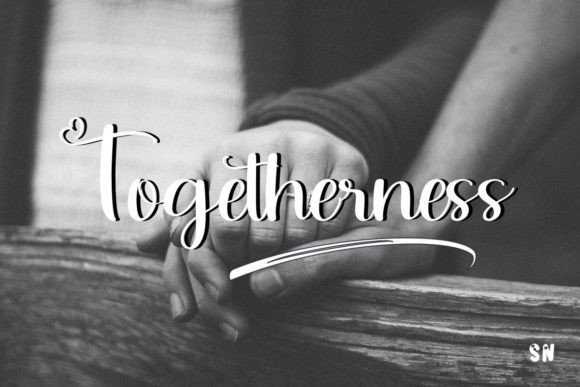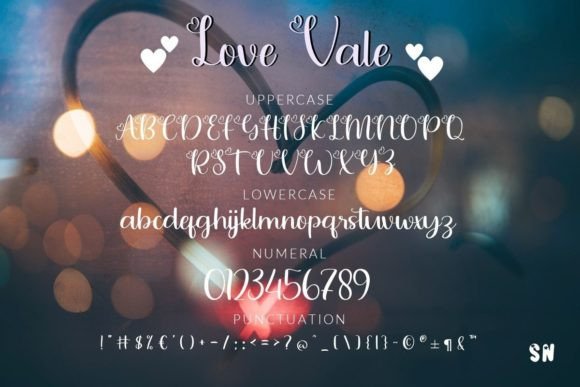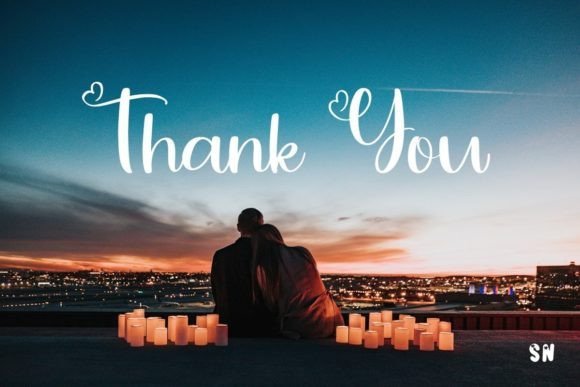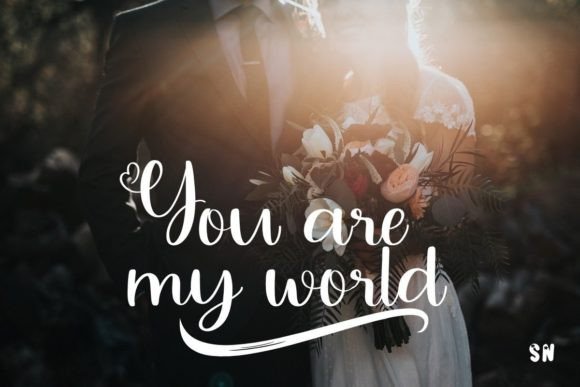
About Love Vale Font
“Love Vale” is a sweet and lovely handwritten font that adds a touch of charm and romance to your designs. With its delicate strokes and graceful curves, this font exudes a dainty and romantic feel, making it a perfect choice for various projects such as wedding invitations, book covers, greeting cards, and more. Its whimsical and heartfelt style captures the essence of love and brings a sense of warmth and intimacy to your creative endeavors.
The font’s soft and flowing letterforms create a visually appealing composition, making it ideal for conveying emotions and adding a personal touch to your projects. Whether you’re designing a heartfelt love letter, creating a memorable wedding announcement, or crafting a romantic book cover, “Love Vale” enhances the emotional connection with your audience, evoking feelings of love and tenderness.
The versatility of “Love Vale” allows it to adapt to different design contexts, bringing an element of sweetness and elegance to every project it graces. Its timeless appeal makes it suitable for a wide range of applications, enabling you to infuse your creations with a sense of love and affection.
In the realm of typography, “Love Vale” stands as a testament to the power of love and creativity. Its sweet and lovely demeanor makes it a popular choice for designers seeking a font that radiates romance and sentimentality. Embrace the warmth of “Love Vale,” and let your creative expressions bloom as you craft designs that celebrate love in its purest form.